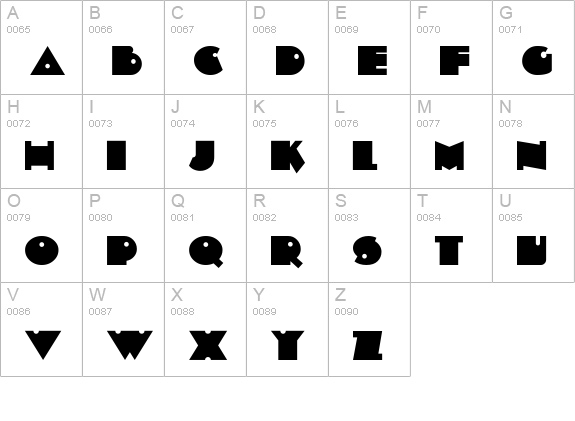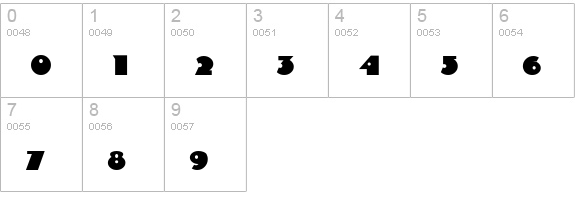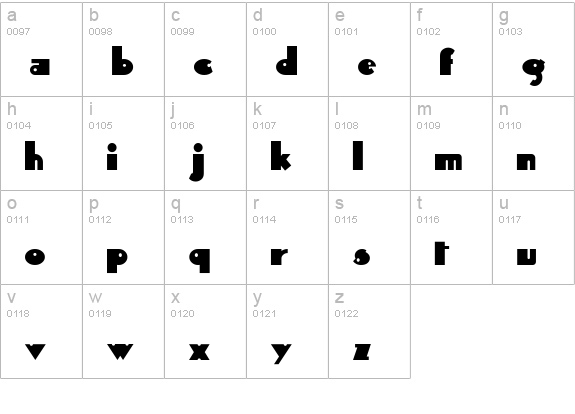
Sid-theKid font is a modern and playful typeface that exudes youthful energy and creativity. With its unique and charming design, this font is perfect for adding a touch of whimsy to any project. Whether you are designing a poster, creating a logo, or crafting a social media post, Sid-theKid font is sure to catch the eye and make a lasting impression. The best part? Sid-theKid font is completely free! That's right, you can freely download this incredible font at FontsMarket.com. No need to break the bank or compromise on quality - Sid-theKid font offers both style and affordability. Featuring a wide range of characters, including uppercase letters, lowercase letters, numbers, and punctuation marks, Sid-theKid font provides endless possibilities for expressing your creativity. Its clean lines and rounded edges give it a modern and approachable feel, making it suitable for a variety of design projects. Whether you are a professional designer or a hobbyist, Sid-theKid font is a must-have in your font collection. Its versatility and playful nature make it a go-to choice for everything from branding and packaging to invitations and greeting cards. So why wait? Embrace the playful spirit of Sid-theKid font and download it for free at FontsMarket.com. Add a touch of whimsy to your designs and let your creativity shine with this one-of-a-kind typeface.